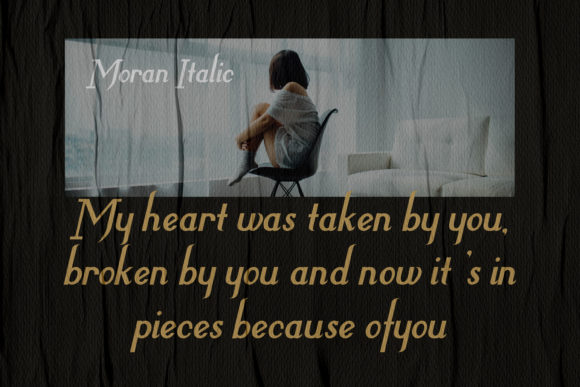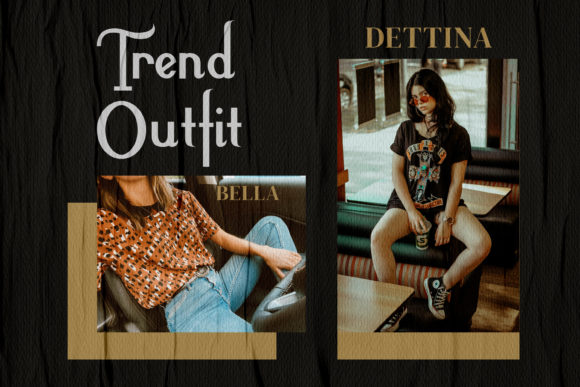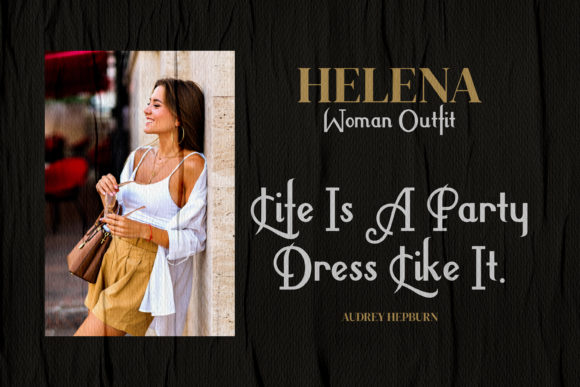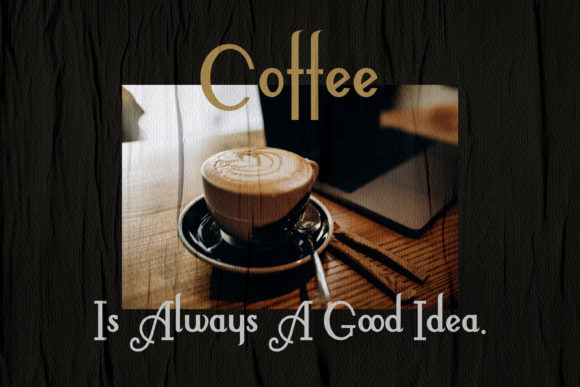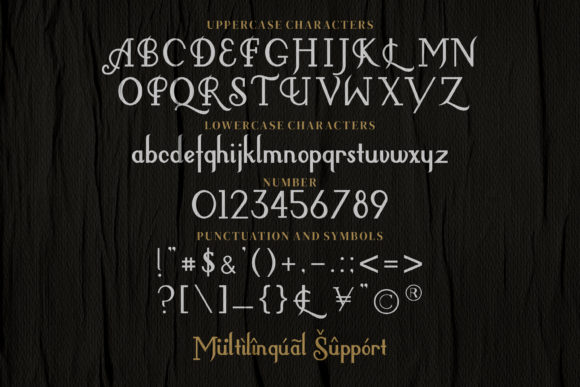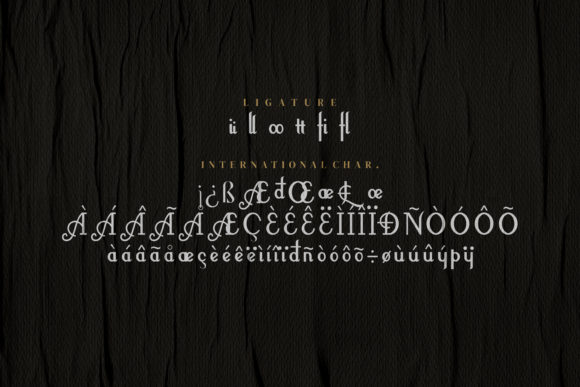
Introduction to Moran Font
Moran is a bold and distinct serif font.
It can be used for various designs such as labels, branding, commercials or album titles The only limit is your imagination.
Key Features of Moran Font